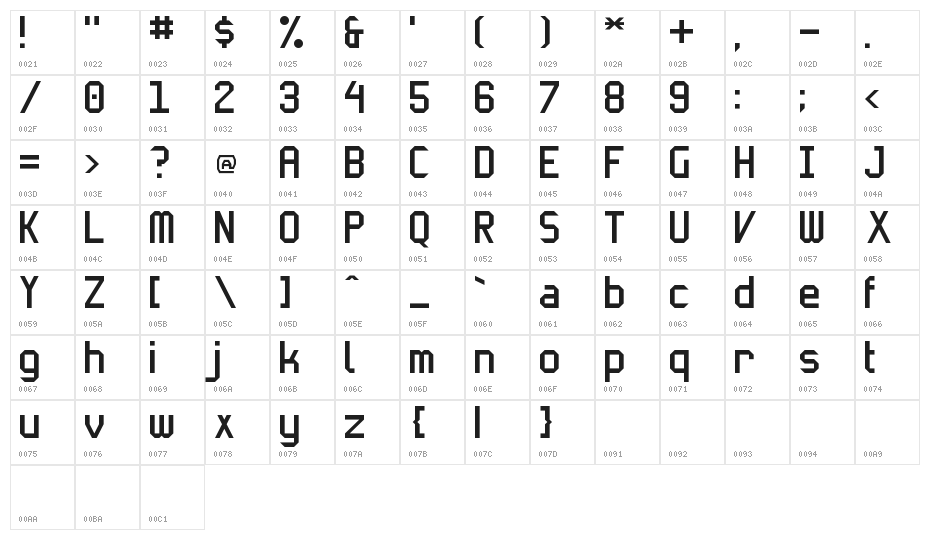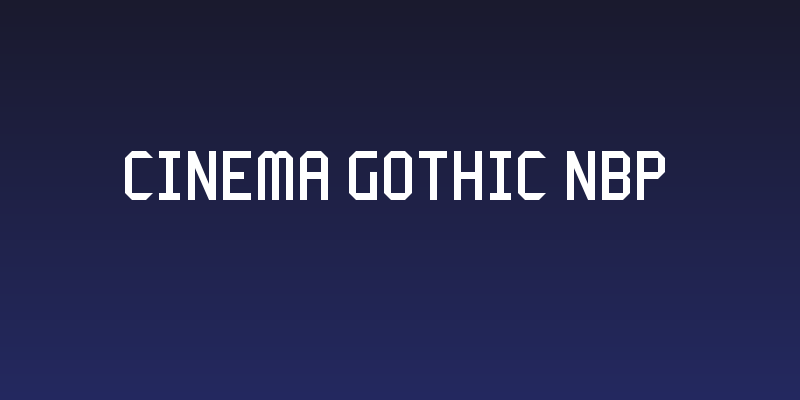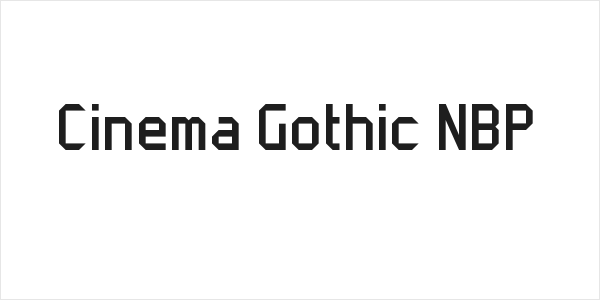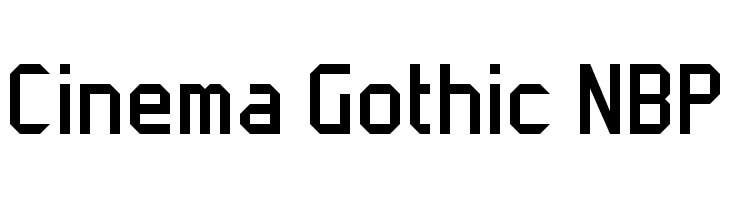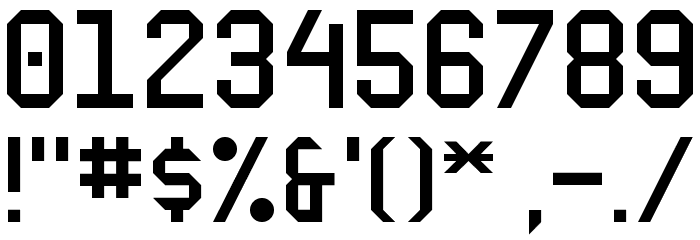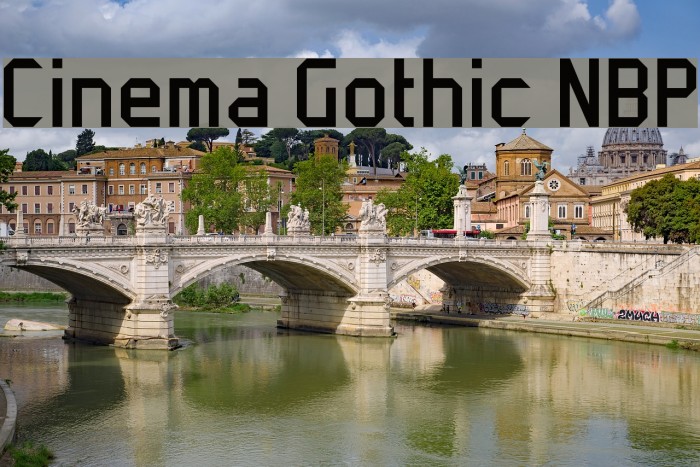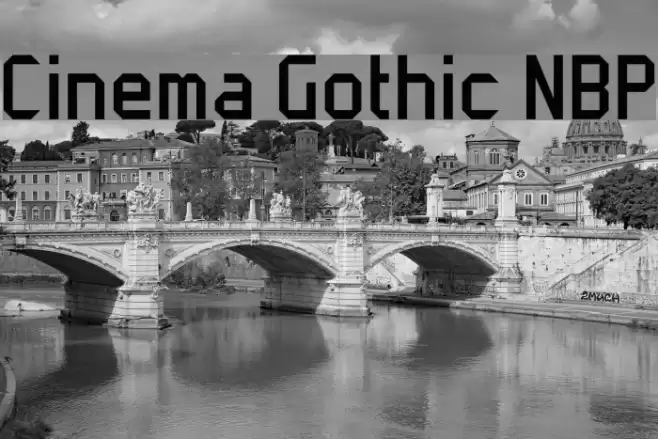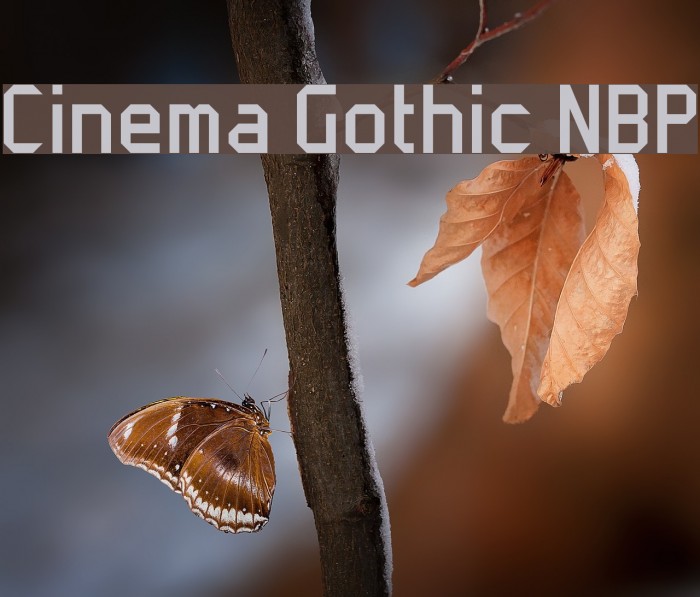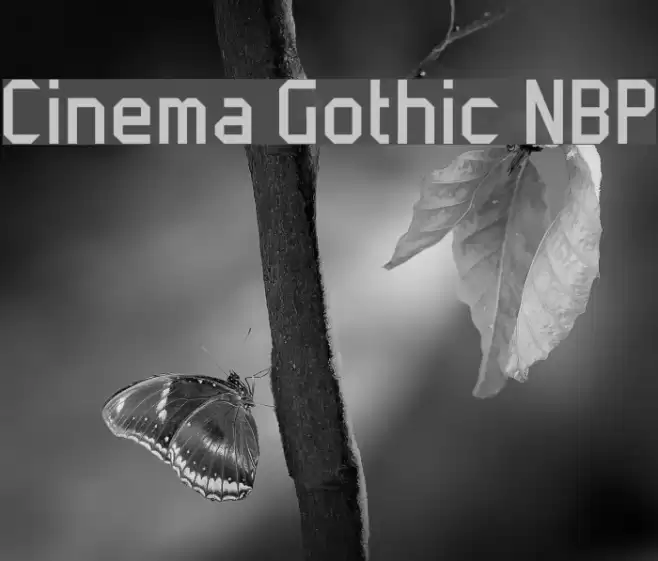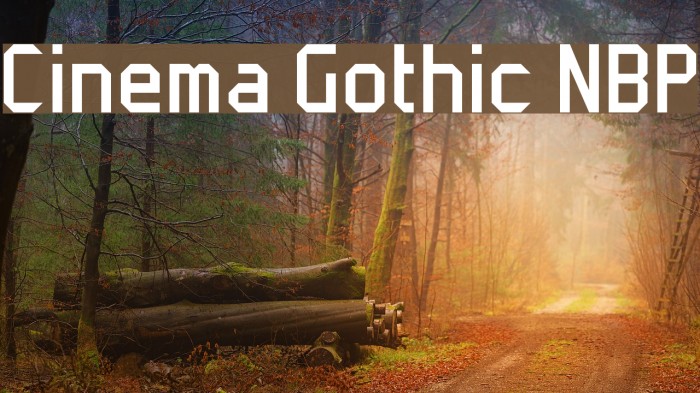
Cinema Gothic NBP Font
Cinema Gothic NBP Description
This font features a bold, geometric design with sharp angles and a modern aesthetic. The uppercase and lowercase letters maintain a consistent height, creating a uniform appearance. The characters are constructed with straight lines and right angles, giving them a blocky, industrial feel. The numerals and special characters follow the same design principles, ensuring a cohesive look across all glyphs. The font's style is reminiscent of early 20th-century industrial design, making it suitable for projects that require a strong, impactful visual presence.